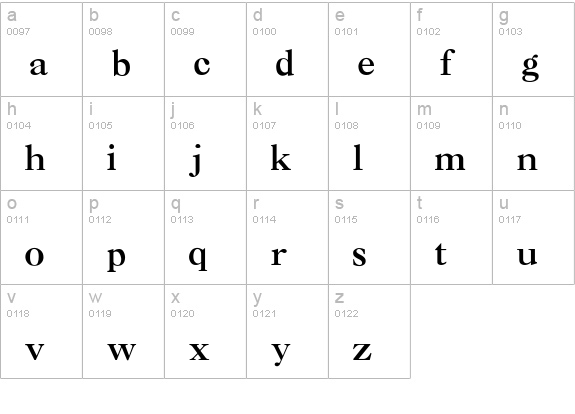
Nelsie-Bold Font Details
Nelsie-Bold is a strong, high-contrast variant in the Nelsie typeface family \xE2\x80\x94 well suited to headlines, attention-grabbing titles, and strong calls-to-action.
Nelsie-Bold font is a modern and stylish typeface that exudes confidence and sophistication. With its strong and bold design, Nelsie-Bold is perfect for making a statement in your designs. Whether you're creating a logo, poster, or branding materials, this font will help you stand out from the crowd. The best part? Nelsie-Bold is completely free to download at FontsMarket.com. Now you can elevate your projects with this striking font without breaking the bank. Don't miss out on this fantastic opportunity to add Nelsie-Bold to your font collection and take your designs to the next level. Download it today and let your creativity shine!